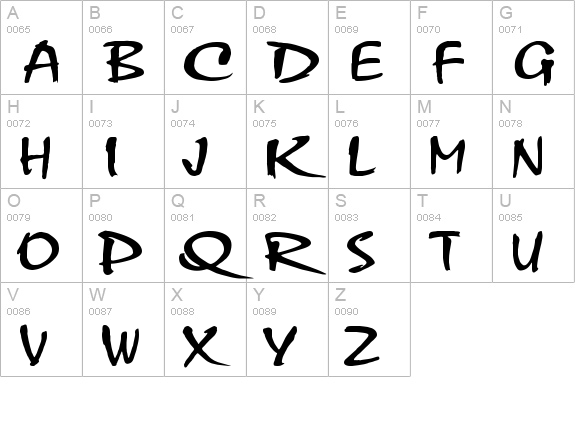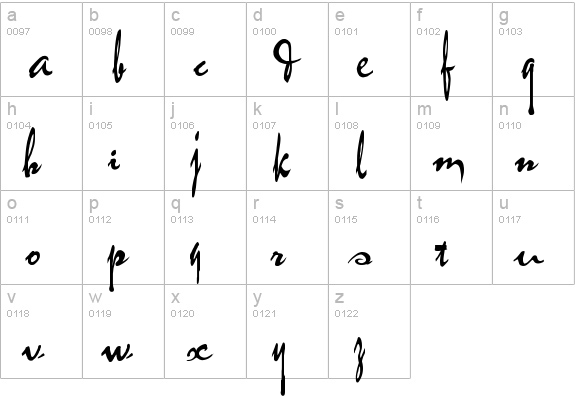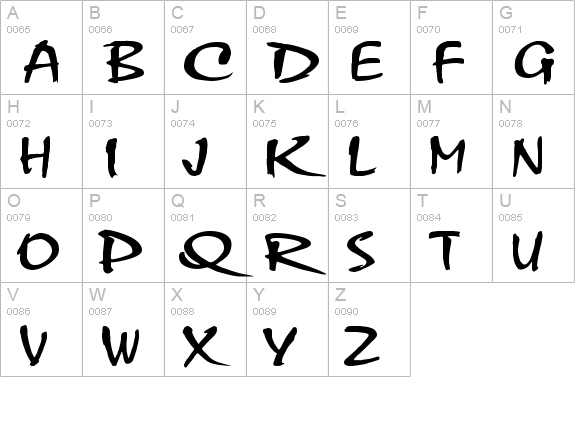
VNI-Thufap1 Font Details
VNI-Thufap1 font is a stunning typeface that exudes elegance and sophistication. With its sleek and modern design, this font is perfect for any project that requires a touch of class. Whether you're designing a logo, creating a stylish website, or crafting eye-catching social media posts, VNI-Thufap1 font is sure to make a lasting impression. What sets this font apart is its versatility. It works equally well in both large and small sizes, ensuring that your message is clear and easy to read. The clean lines and impeccable spacing of the letters contribute to its overall legibility, making it a favorite among designers and typographers. One of the best things about VNI-Thufap1 font is that it is free! That's right, you can download this incredible font without spending a dime. Simply visit FontsMarket.com and you'll have access to this amazing typeface, ready to enhance your creative projects. Whether you're a professional designer or a hobbyist, VNI-Thufap1 font is a must-have in your font collection. Its timeless appeal and effortless elegance will elevate your designs to new heights. Download this font today and let your creativity soar!